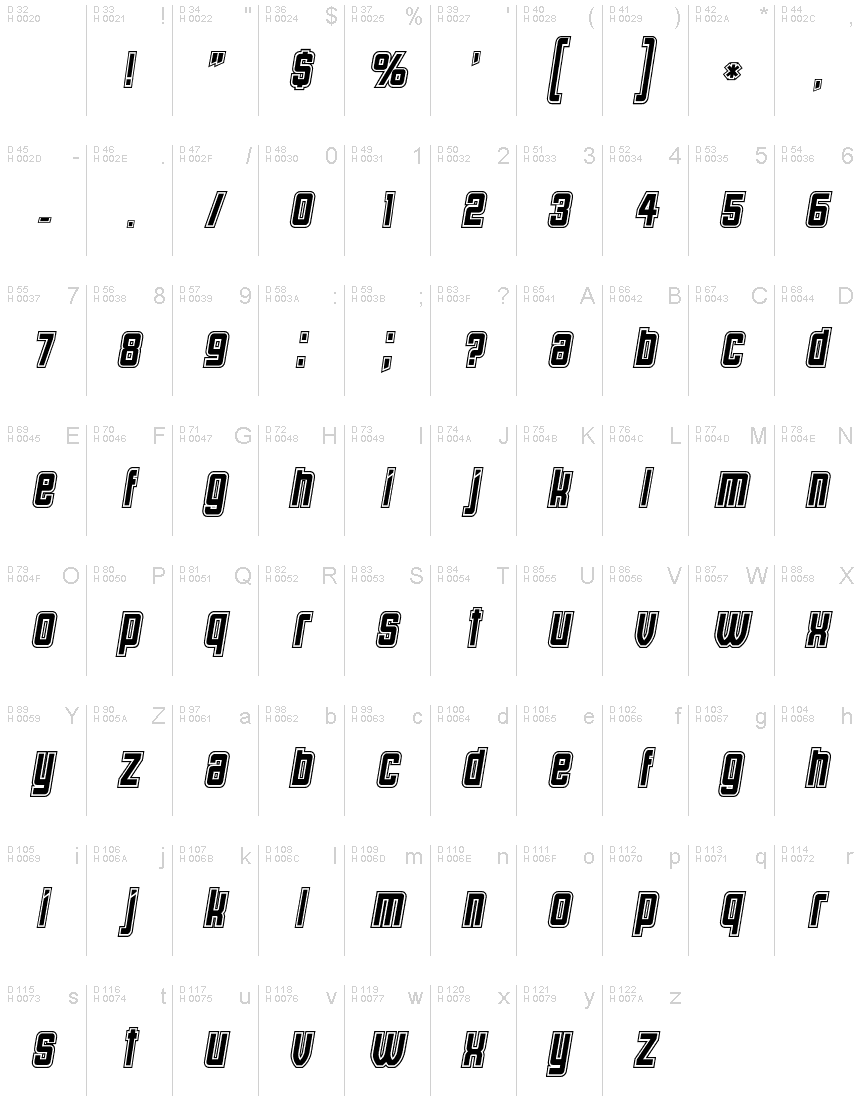
Riviera College Condensed
Riviera College Condensed is a display font designed by Vladimir Nikolic. With its extra-condensed width, this font is perfect for all sorts of projects that require a sleek and modern look, such as branding, advertising, packaging design, and more. Its condensed style makes it ideal for headings and titles at larger sizes while still maintaining legibility. The sharp edges of this semi-bold typeface add a touch of sophistication to any project. Use Riviera College Condensed to create typography that stands out from the crowd and catches the eye of your audience.